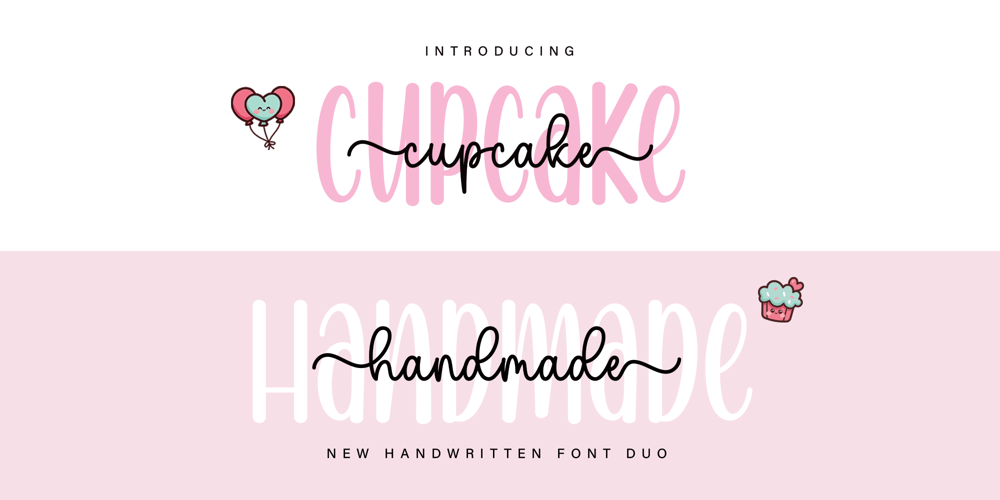
Cupcake Handmade Font Family was designed by published by Dania Graphix Studio. Cupcake Handmade contains 2 styles and family package options. Cupcake Handmade Duo is a stylish and delicate duo font (sans serif and script) suitable for a wide spectrum of applications. From greeting cards to headlines, this font will guarantee a romantic touch to each of your creations! Cupcake Handmade Duo is PUA encoded which means you can access all of the glyphs and ligatures with ease.